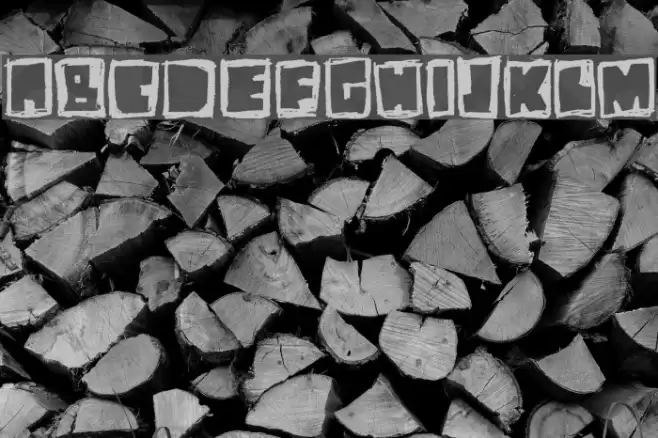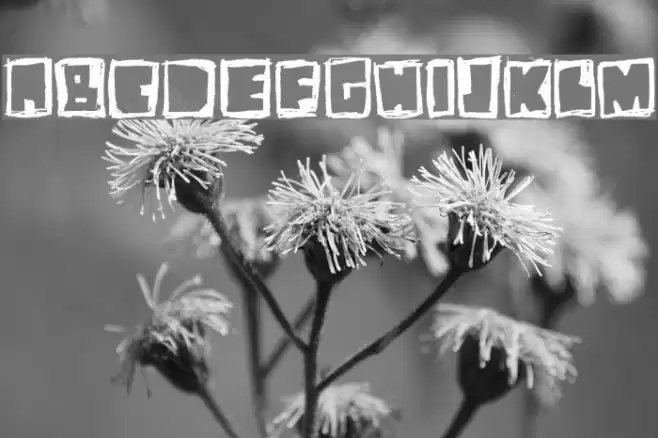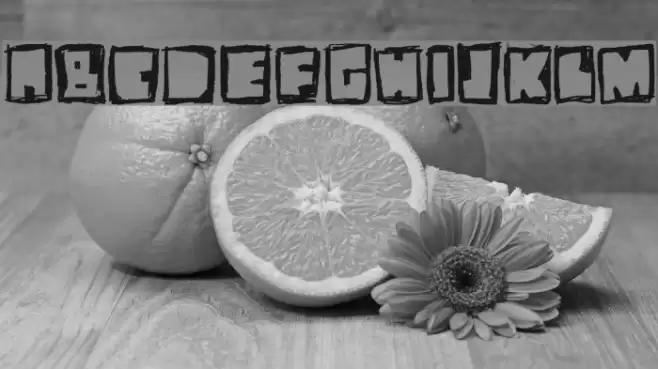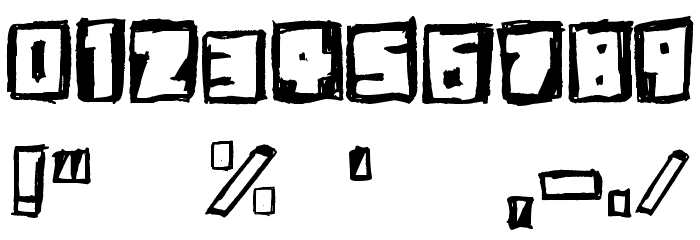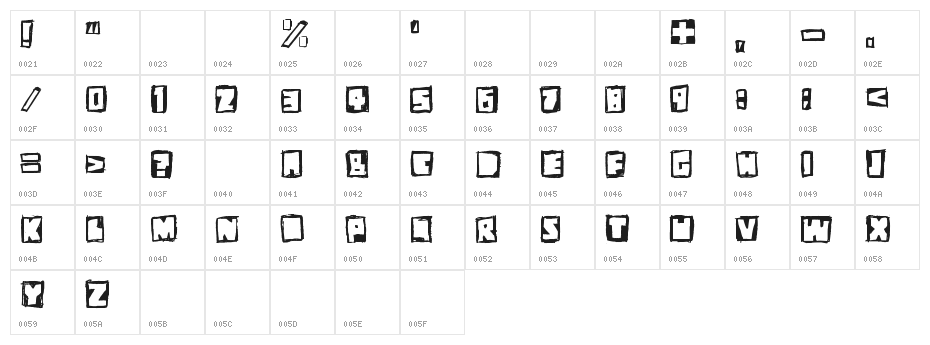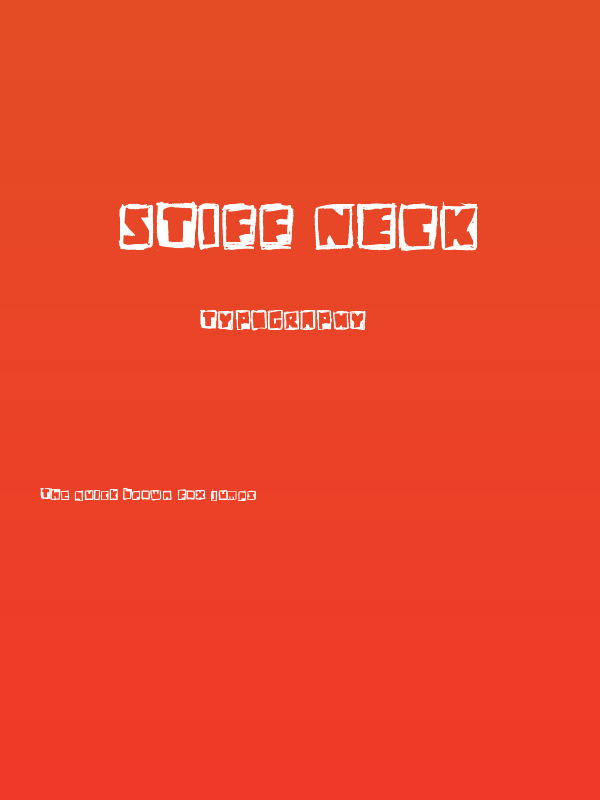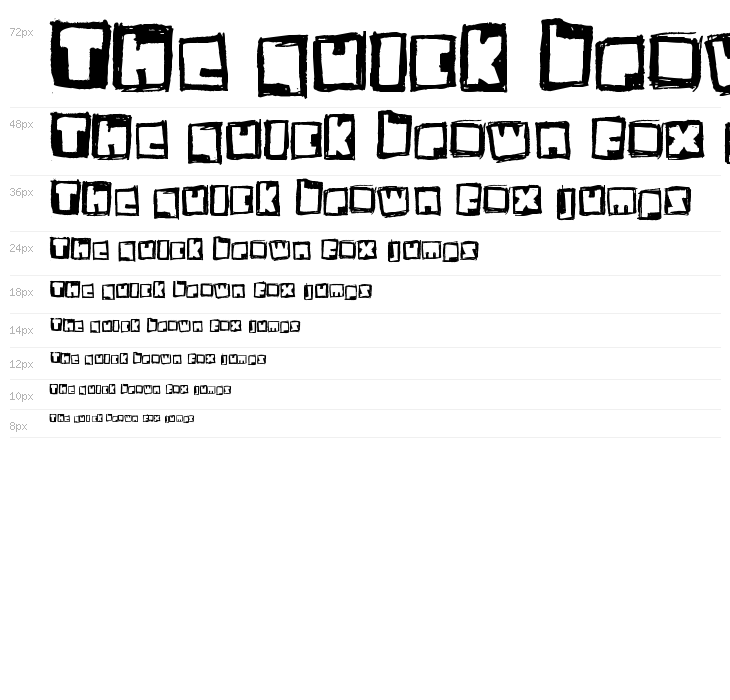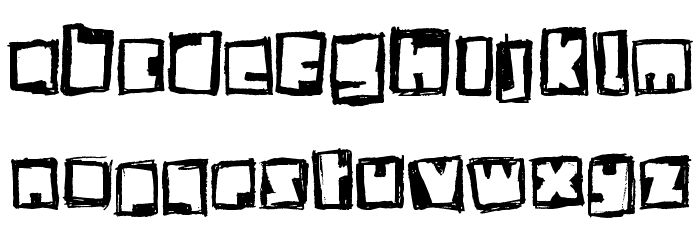
stiff neck Font
stiff neck Description
This font features a bold, hand-drawn style with a rough, textured appearance. Each character is enclosed in a square, giving it a blocky and structured look. The letters have an uneven, sketch-like quality, adding a sense of dynamism and creativity. The uppercase and lowercase letters maintain a consistent style, with the lowercase being slightly smaller but equally bold. Numbers and special characters follow the same design principles, ensuring uniformity across all elements. This font's unique, artistic flair makes it stand out, perfect for projects that require a distinctive and eye-catching typeface.
A bold, hand-drawn font with a rough, textured, and blocky appearance from Crazy fonts.
- Proposed Projects: Ideal for posters, album covers, graffiti art, and creative branding projects.